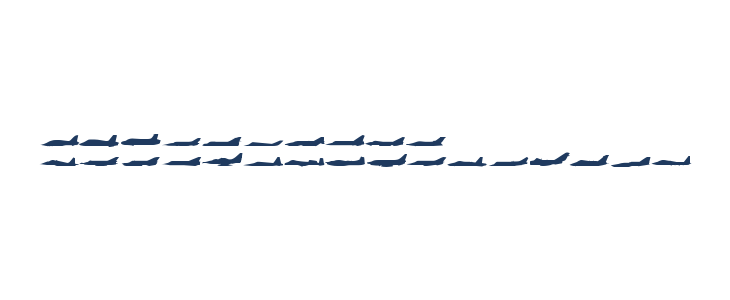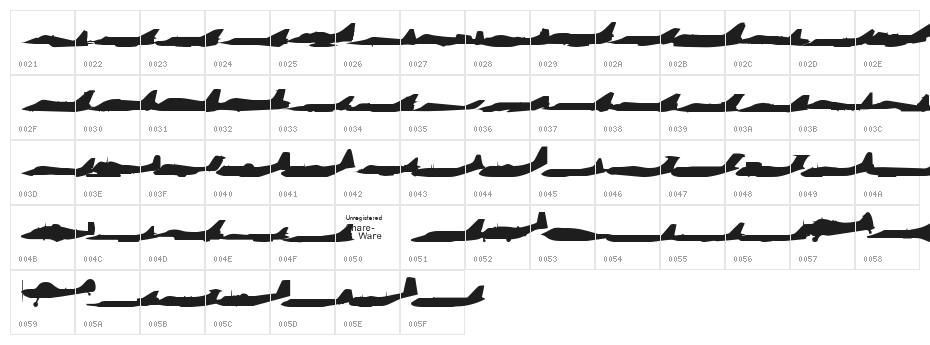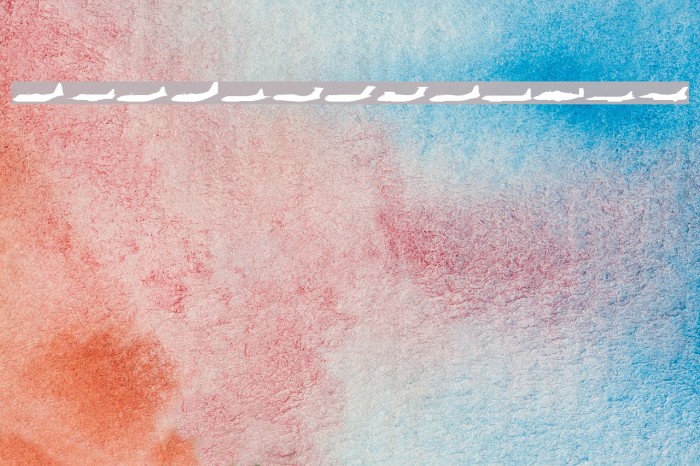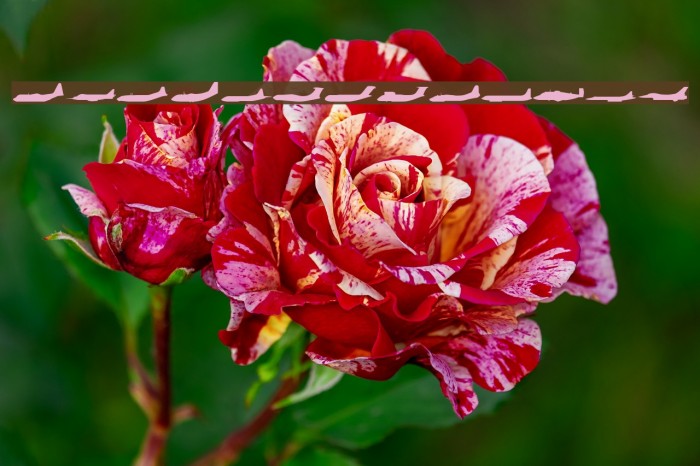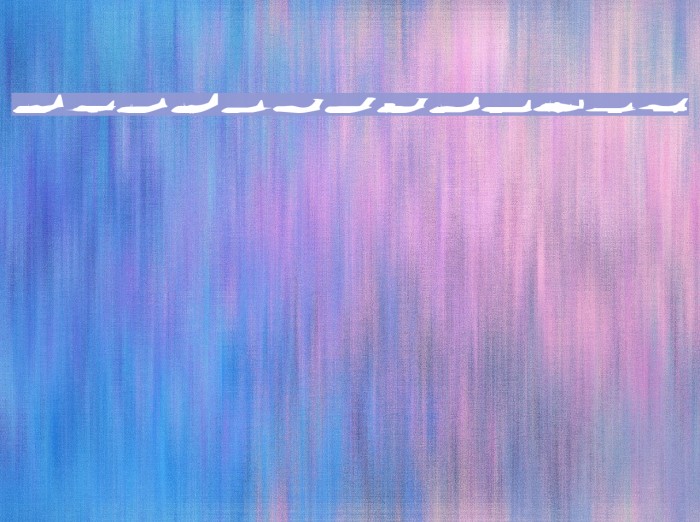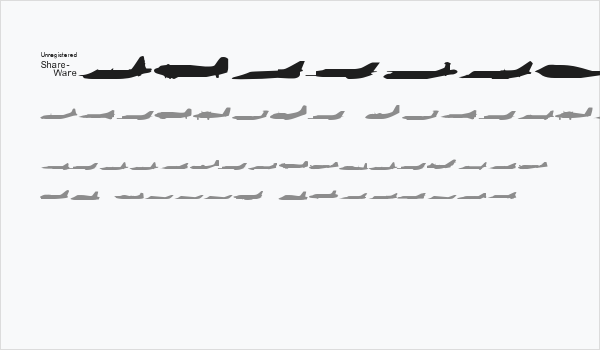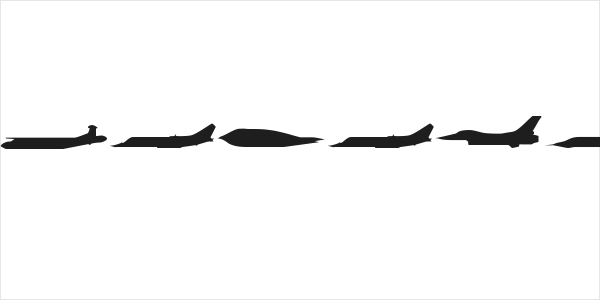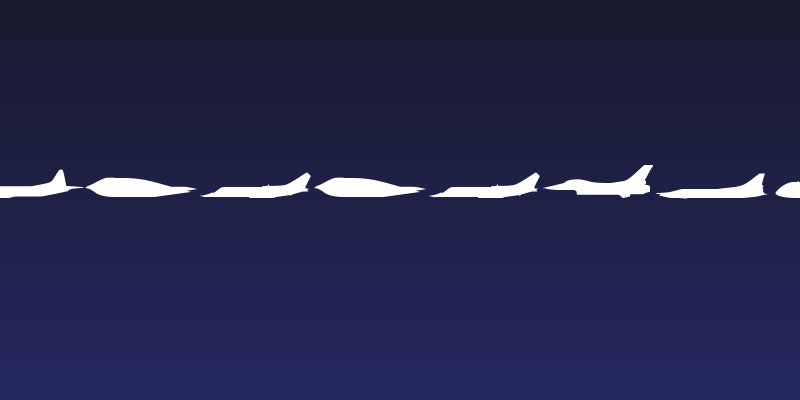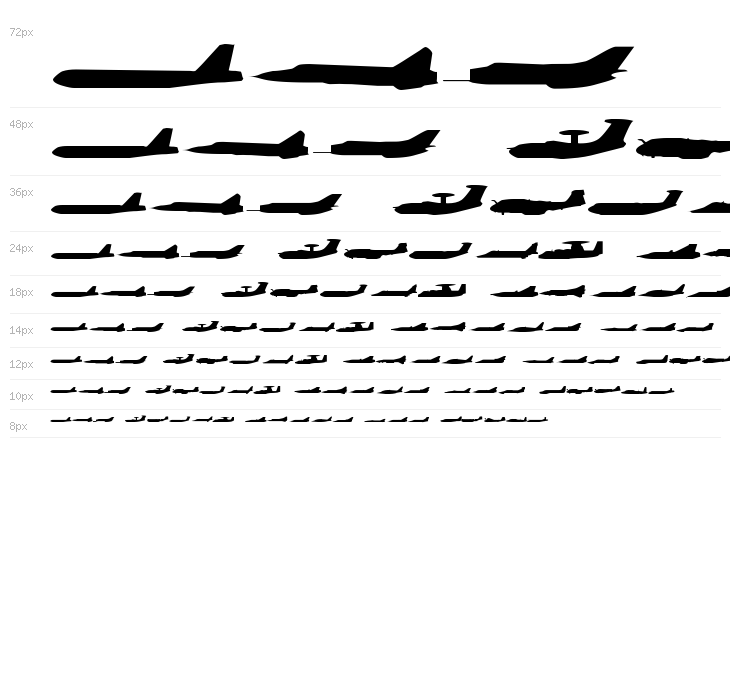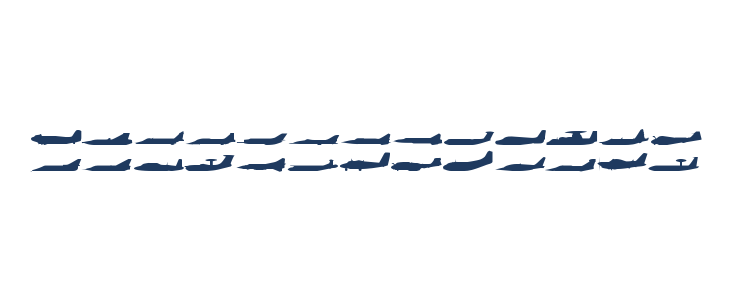
Planes-S-Modern Font
Planes-S-Modern Description
A decorative font composed entirely of airplane silhouettes, each character represented by a unique aircraft profile in solid black. The shapes are highly stylized and lack traditional typographic features such as serifs, counters, or consistent stroke widths.
| Overall Style | Decorative, Thematic |
| Use Case | Logos, Posters, Themed headlines, Educational graphics |
| Proposed Projects | Aviation-themed posters, educational materials, event flyers, novelty designs, children's books, or branding for aviation-related businesses. |